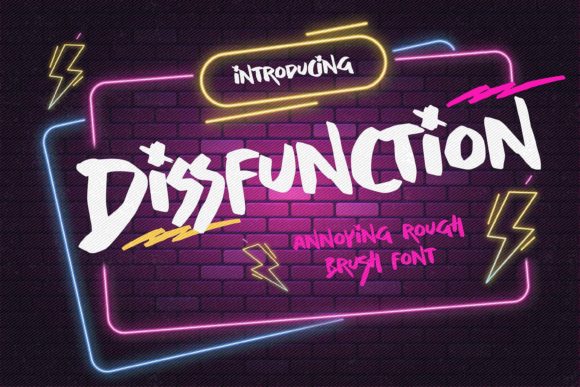
Dissfunction Font: The Authentic Handmade Typeface
Capturing the Imperfect Beauty of Handcraft
In a digital world saturated with polished, geometric perfection, there is a growing demand for designs that feel human. Enter Dissfunction Font, a creative typeface that embraces the beauty of imperfection. This is not a font that tries to hide its origins; it leans into them. Described as an "annoying" rough brush display font, Dissfunction offers a raw, gritty texture that mimics the natural inconsistencies of hand-lettering. It bridges the gap between digital precision and analog authenticity, providing a handwritten font option that feels genuinely lived-in rather than artificially generated.
The visual personality of this typeface is defined by its texture. Unlike standard sans serif font families that prioritize clean lines, Dissfunction features jagged edges, ink splatters, and varying stroke weights that mimic a real brush hitting rough paper. This creates a dynamic visual rhythm that static fonts often lack. It is a premium font designed for projects where the goal is to evoke emotion, nostalgia, or a sense of rebellious energy. The "rough" aesthetic isn't chaotic; it is carefully crafted to maintain legibility while delivering a powerful visual punch.
Strategic Applications for Branding and Marketing
Choosing the right typeface is a strategic business decision, not just an aesthetic one. The fonts you use tell a story about your brand before a customer reads a single word. Dissfunction Font speaks a language of authenticity, creativity, and approachability. It is particularly effective for entrepreneurs and small business owners looking to differentiate themselves from corporate, sterile branding.
Consider how this font fits into various real-world scenarios:
Furthermore, in editorial design and book covers, this typeface excels at genre signaling. For thriller, horror, or grunge-themed publications, the rough brush strokes add necessary atmosphere. It moves beyond simple text to become a part of the storytelling itself.
Enhancing Visual Hierarchy and Readability
One common hesitation with creative fonts is the concern for readability. However, understanding visual hierarchy allows you to use Dissfunction effectively without sacrificing clarity. This font is designed as a display font, meaning it shines brightest at larger sizes. It is the anchor of your design, meant for headlines, subheadings, pull quotes, and logos.
Attempting to use Dissfunction for body copy in a web design or long-form document would likely result in fatigue. Instead, use it to create contrast. Pair it with a clean, highly legible serif font or a neutral sans-serif for body text. This font pairing strategy creates a sophisticated balance: the display font provides the personality and flair, while the body font ensures the message is easily consumed.
The texture of the font influences how the audience perceives the information. A bold, rough headline suggests energy and importance, drawing the eye immediately. This psychological impact is crucial for marketing materials where you need to communicate value propositions instantly. By utilizing Dissfunction for key focal points, you guide the viewer's eye exactly where you want it, improving the overall flow of the design.
Technical Excellence: PUA Encoding and Glyphs
Beyond its visual charm, Dissfunction Font offers technical robustness that professional designers require. A standout feature is its PUA (Private Use Areas) encoding. For designers, this is a critical feature. It means that all the unique glyphs, swashes, and ligatures included in the font are fully accessible even without specialized design software or advanced OpenType support.
When working with this commercial font, you can easily access alternate characters to customize your typography further. This allows for a high degree of personalization. You can swap out a standard letter "a" for a stylistic alternate that adds a tail or a flourish, ensuring that your logo design or header text is truly one-of-a-kind. This ease of access makes it a practical choice for a wide range of users, from Adobe Illustrator experts to content creators using platforms like Canva.
Integrating Dissfunction into Your Workflow
When selecting design assets for a project, the decision to use a font like Dissfunction should be based on the project's narrative. Ask yourself: Does this project need to feel warm and human? Is the target audience looking for something edgy or artistic?
If you are working on craft projects, such as T-shirt designs or wall art, the natural handwritten feel of the font adds a layer of warmth that digital-looking fonts cannot replicate. For invitation design—whether for a rustic wedding or a music festival—the font sets the mood immediately, acting as a visual cue for the event's vibe.
Ultimately, Dissfunction Font